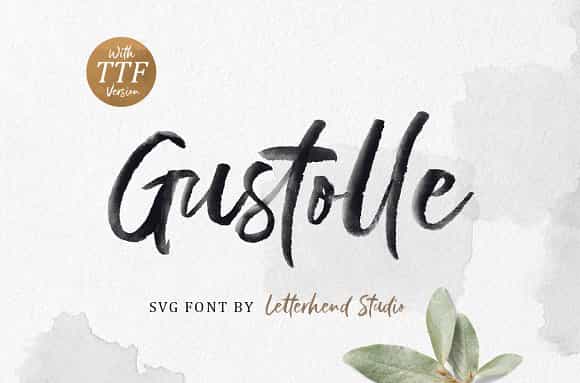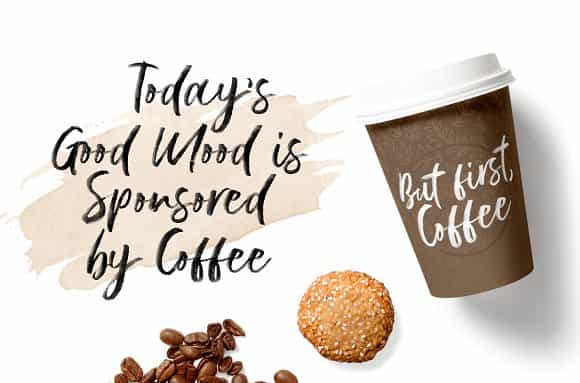
Introducing Gustolle Brush Font. Gustolle – a SVG Font, which is written by hand. The natural texture makes the fonts appear great for both feminine look or masculine design. This typeface is designed for headlines, logotypes, apparel, invitations, branding packaging and advertising etc. It comes in uppercase lowercase punctuations symbols numerals stylistic set alternate ligatures etc also it supports multilingual. It is also PUA Encoded.